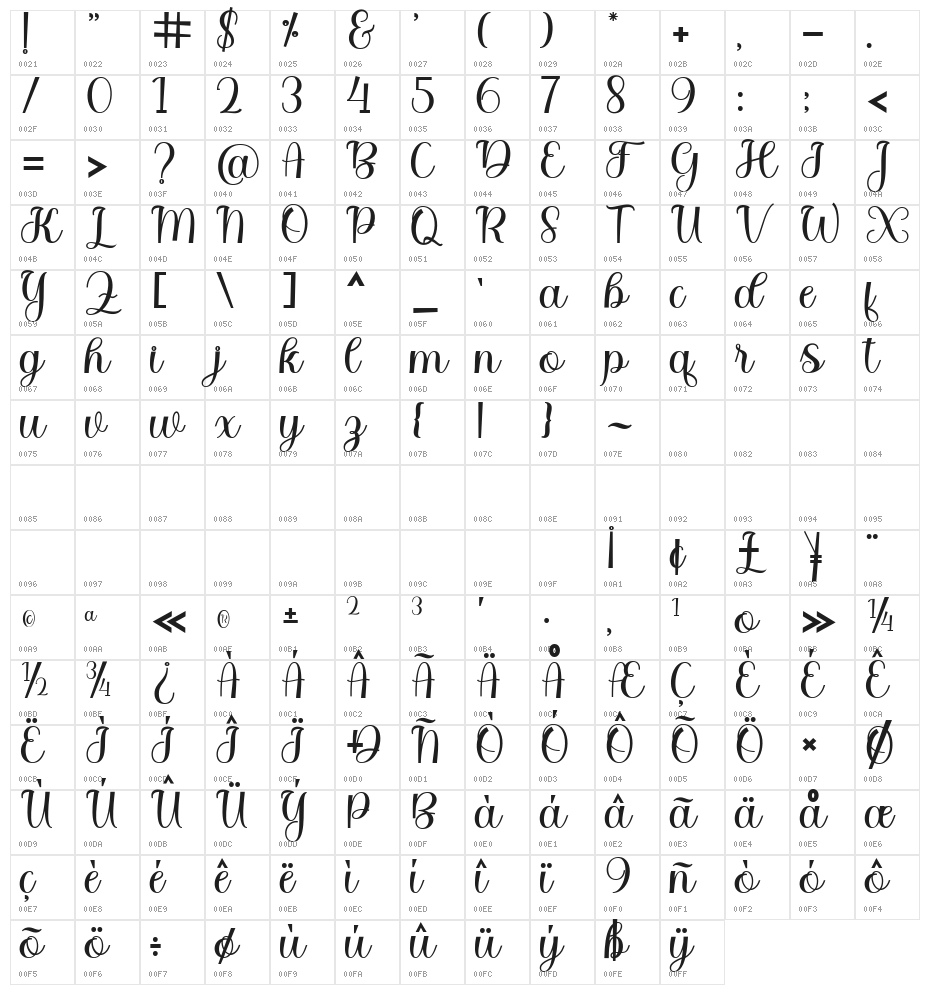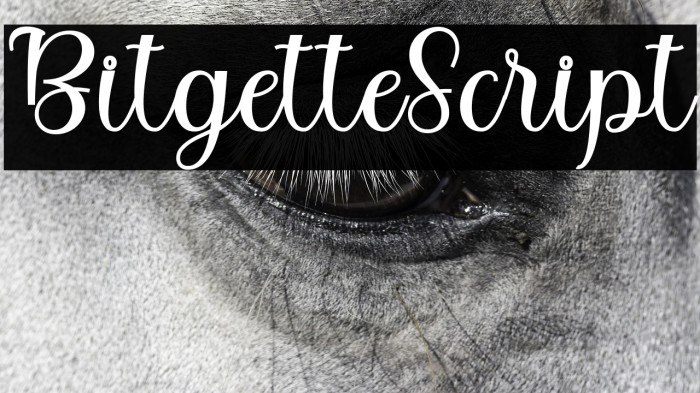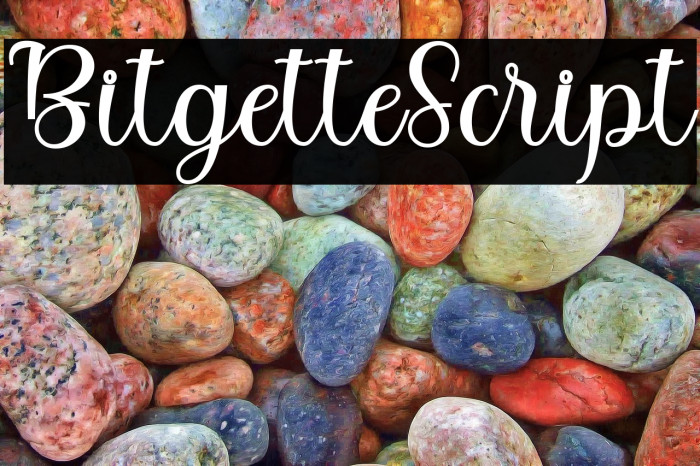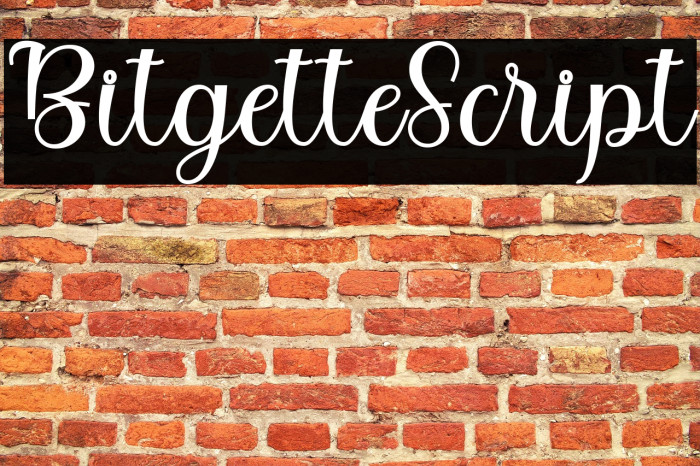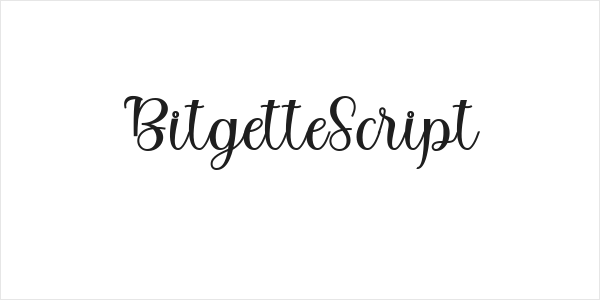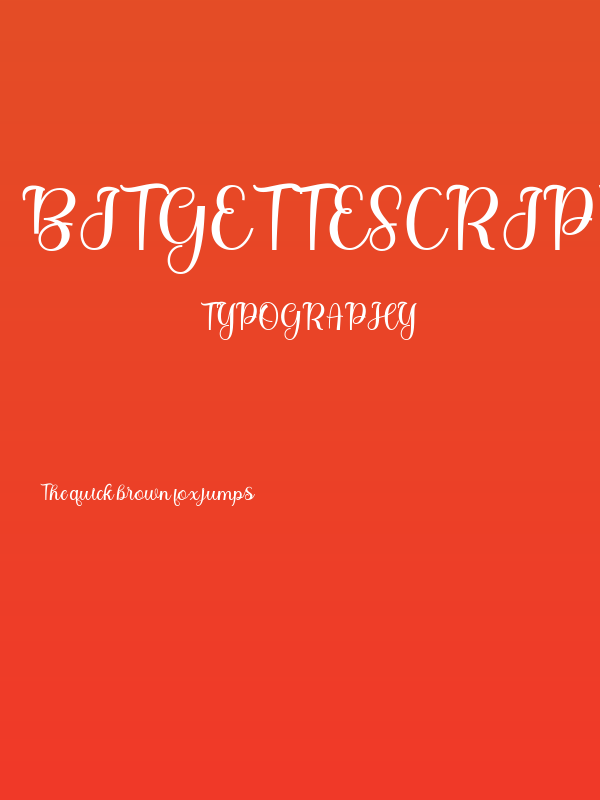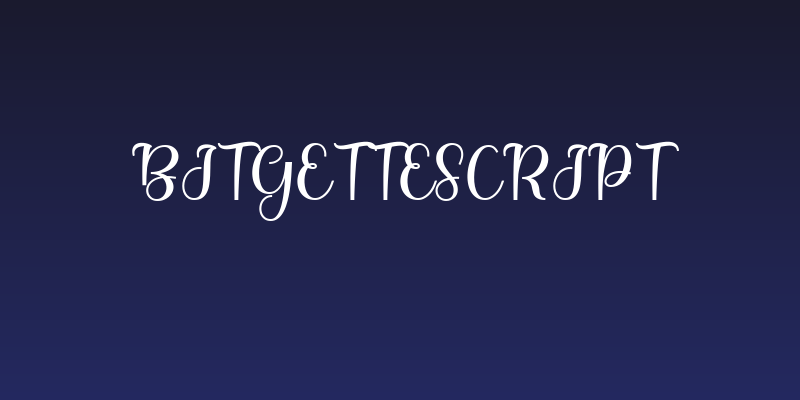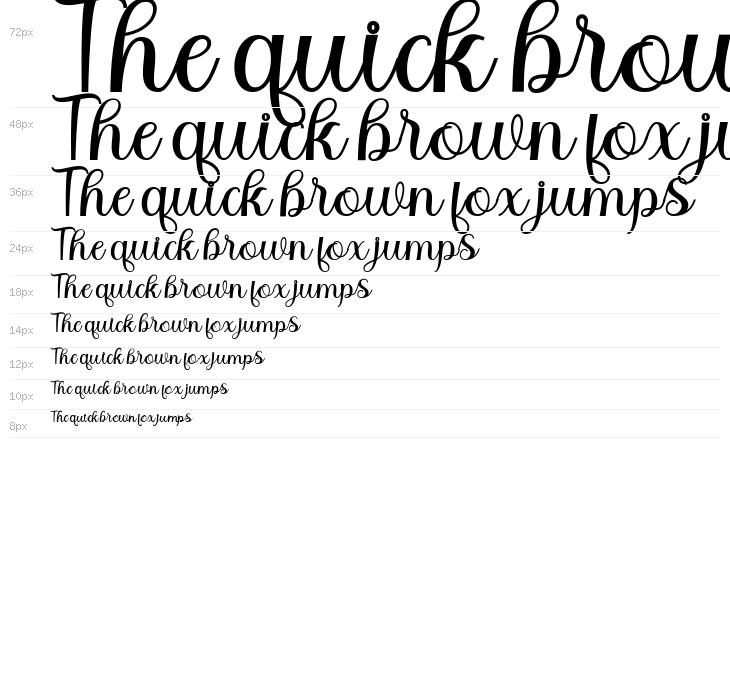
BitgetteScript Font
BitgetteScript Description
This font exudes a playful and elegant script style, characterized by its flowing, cursive letterforms. The uppercase letters are tall and slightly narrow, with graceful loops and swashes that add a touch of sophistication. The lowercase letters maintain a consistent flow, with rounded edges and smooth connections between characters. The numerals are distinct and easy to read, featuring a slight slant that complements the overall script style. Special characters are designed with the same fluidity, ensuring a cohesive look across all glyphs. This font is ideal for projects that require a personal, handwritten touch, such as invitations, greeting cards, and branding materials.
| Use Case | Logos, Headlines, Decorative text |
| Proposed Projects | Ideal for invitations, greeting cards, branding materials, and decorative designs. |